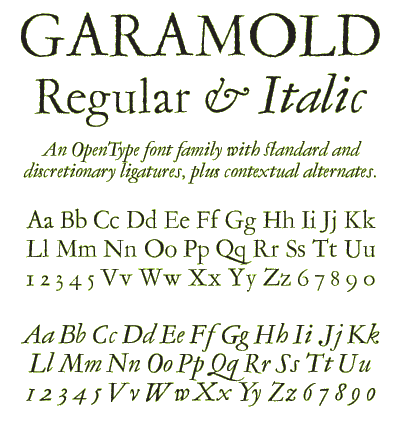
Garamold is a digitization of letters designed by Claude Garamond dating from 1540. The font includes traditional ligatures and alternate letterforms, including the long s for period typography.